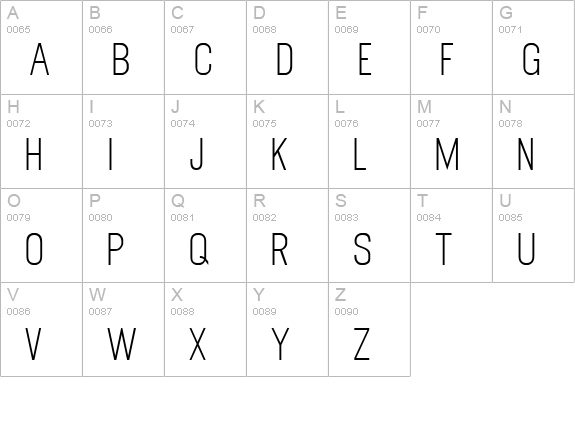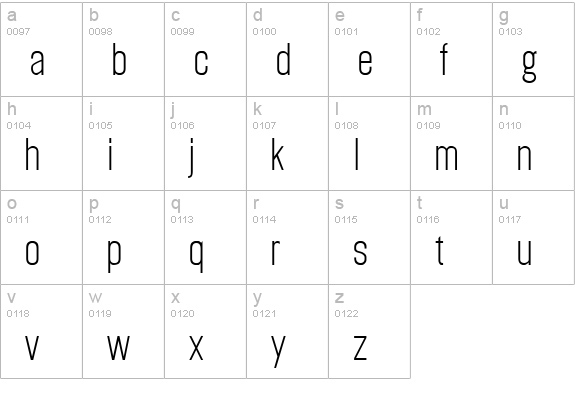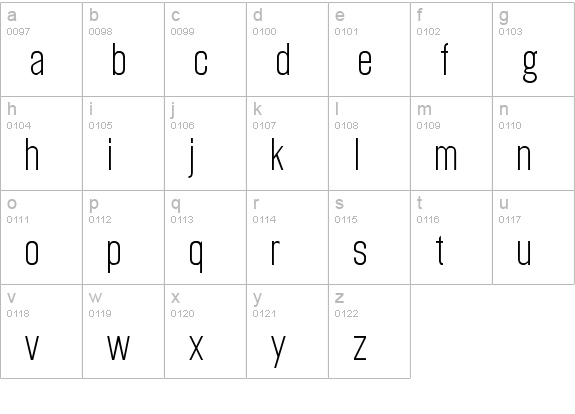
Myhota Plain Font Details
Myhota Plain font is a stylish and modern typeface designed to bring elegance and sophistication to your projects. With its clean lines and simple yet distinctive letterforms, Myhota Plain is perfect for various design applications, from branding to editorial design. The font exudes a sense of sleekness and professionalism, making it ideal for creating polished and refined designs. What's more, Myhota Plain font is available for free download at FontsMarket.com. This means you can easily access this versatile font and use it in your creative projects without any cost. Whether you're working on a personal project or a professional design, Myhota Plain font offers a touch of sophistication and style that will elevate your work to the next level. Download Myhota Plain font today and add a touch of elegance to your designs!